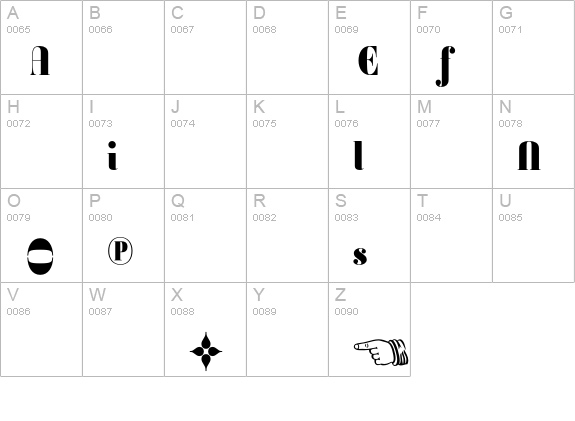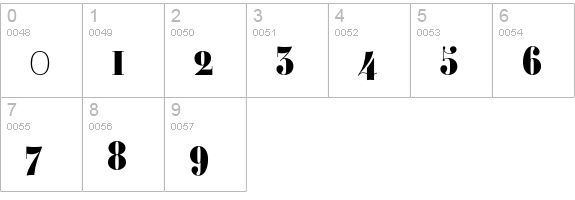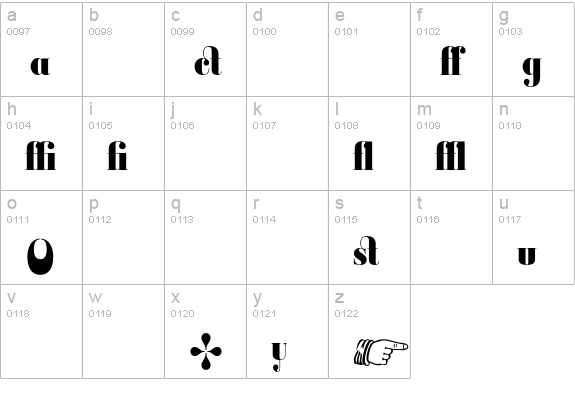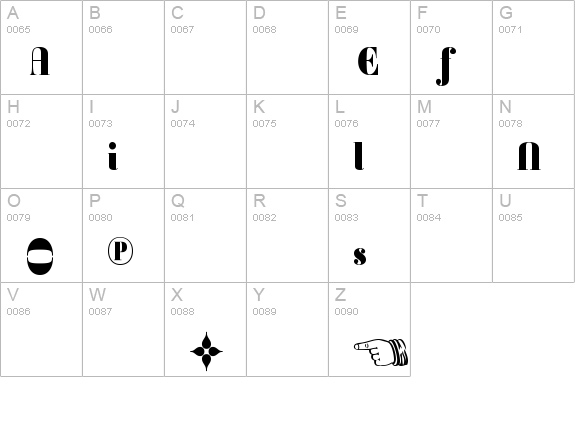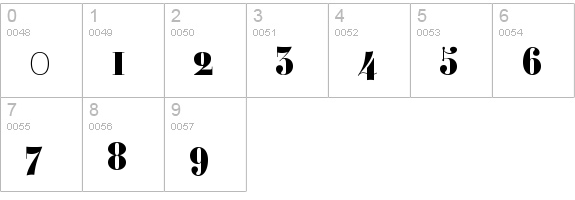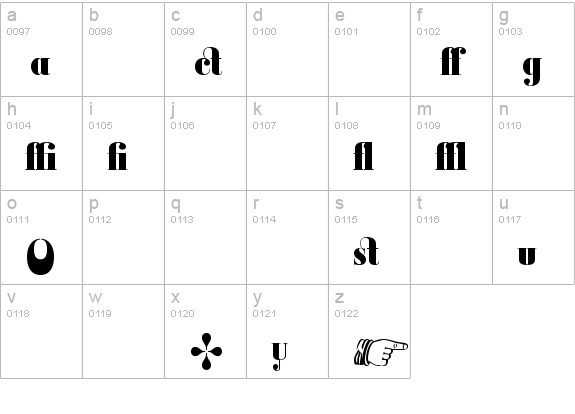
Ambroise Firmin Alternates Black is a maximum-weight, dramatic variant in the Ambroise typeface family \xE2\x80\x94 well suited to maximum-impact headlines, posters, and packaging.
The Ambroise Firmin Alternates Black font is a bold and stylish typeface that exudes sophistication and elegance. Its strong, thick strokes make a striking statement, perfect for headlines, logos, and branding materials. The alternate characters add a unique touch to your designs, giving them a distinctive flair. Best of all, this font is available for free download at FontsMarket.com. Whether you're working on a personal project or a professional design, the Ambroise Firmin Alternates Black font is a versatile option that will elevate your work to the next level. Don't miss out on this fantastic opportunity to enhance your designs with this stunning typeface.